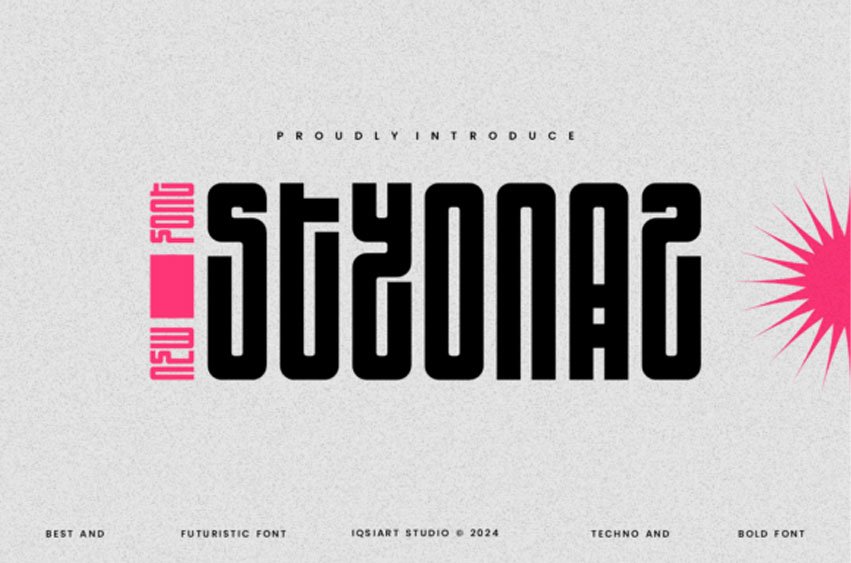
Styonaz Font is a bold and assertive serif font.
No matter the topic, this font will be an incredible asset to your fonts’ library, as it has the potential to elevate any creation.